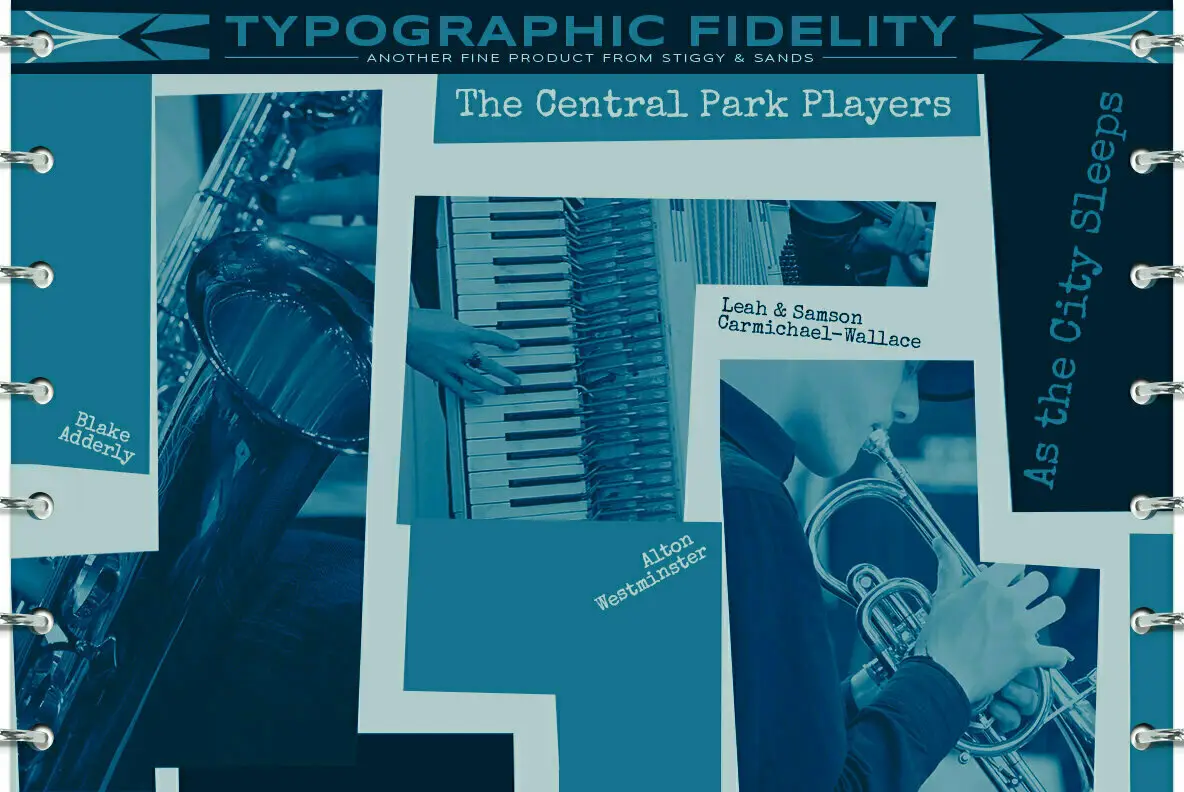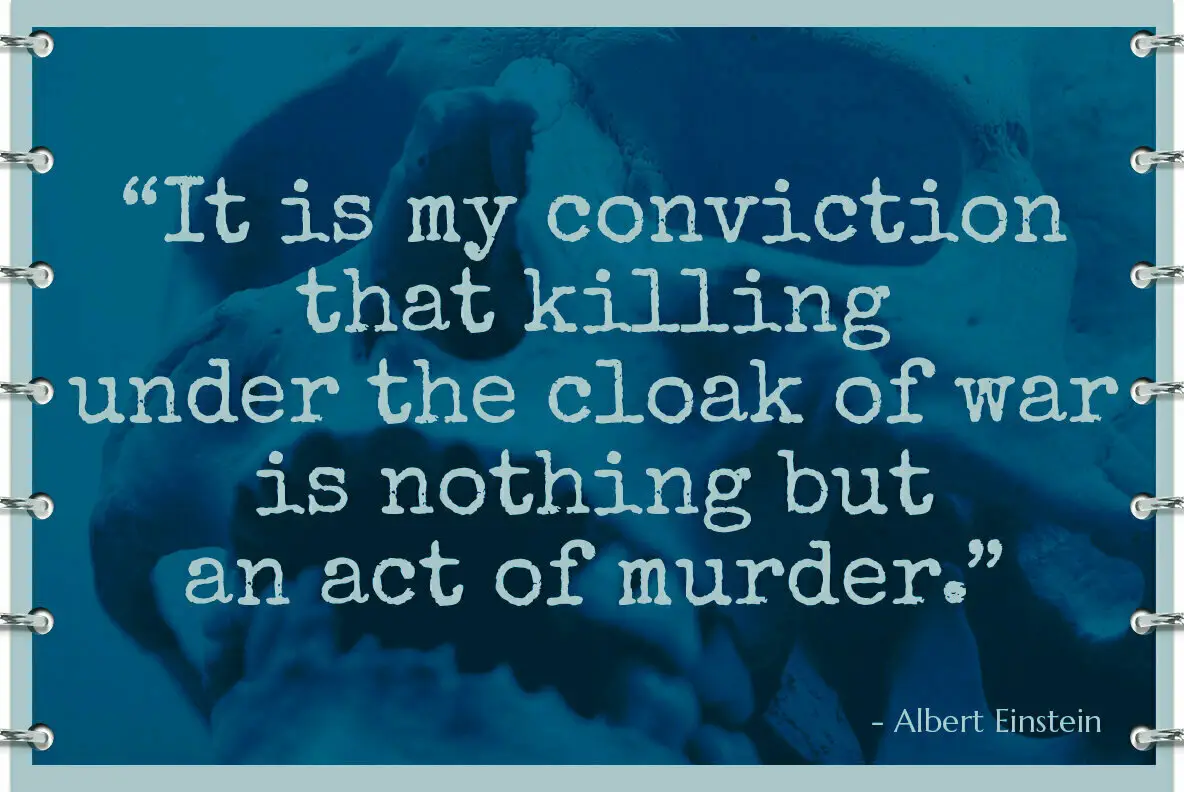
Special Elite Pro Font . A little bit of inked up grunge and a little. Antique typewriters would type with a warmth and appeal to them, primarily because of their unpredictable “grunge” results from force of keystrokes to ribbon and paper. Special elite was created to mimic the smith corona special elite type no nr6 and remington noiseless typewriter models. Special elite pro font brings the unique individuality of the special elite type no. Nr6 vintage typewriter keyset to the digital age. Our special elite pro brings the unique individuality of the special elite type no. Special elite is modeled after the smith corona special elite type number nr6 and remington noiseless typewriters. Download and install the special elite free. Our special elite pro brings the unique individuality of the special elite type no. Special elite mimics the smith corona special elite type number nr6 and remington noiseless typewriter models. Our special elite pro brings the unique individuality of the special elite type no. Nr6 vintage typewriter keyset to the digital age. The smallcaps and extensive figure sets. Nr6 vintage typewriter keyset to the digital age. Nr6 vintage typewriter keyset to the digital.
Nr6 vintage typewriter keyset to the digital age. Special elite pro font brings the unique individuality of the special elite type no. Our special elite pro brings the unique individuality of the special elite type no. Antique typewriters would type with a warmth and appeal to them, primarily because of their unpredictable “grunge” results from force of keystrokes to ribbon and paper. A little bit of inked up grunge and a little. Nr6 vintage typewriter keyset to the digital age. Special elite is modeled after the smith corona special elite type number nr6 and remington noiseless typewriters. Special elite was created to mimic the smith corona special elite type no nr6 and remington noiseless typewriter models. Nr6 vintage typewriter keyset to the digital.
Special Elite Pro Stiggy & Sands
Special Elite Pro Font Special elite pro font brings the unique individuality of the special elite type no. Nr6 vintage typewriter keyset to the digital age. Special elite pro font brings the unique individuality of the special elite type no. Our special elite pro brings the unique individuality of the special elite type no. Nr6 vintage typewriter keyset to the digital. Special elite was created to mimic the smith corona special elite type no nr6 and remington noiseless typewriter models. A little bit of inked up grunge and a little. Special elite mimics the smith corona special elite type number nr6 and remington noiseless typewriter models. Special elite is modeled after the smith corona special elite type number nr6 and remington noiseless typewriters. Download and install the special elite free. Our special elite pro brings the unique individuality of the special elite type no. The smallcaps and extensive figure sets. Antique typewriters would type with a warmth and appeal to them, primarily because of their unpredictable “grunge” results from force of keystrokes to ribbon and paper. Nr6 vintage typewriter keyset to the digital age. Our special elite pro brings the unique individuality of the special elite type no. Nr6 vintage typewriter keyset to the digital age.
Similar Fonts To Special Elite Pro Fontspring Special Elite Pro Font Nr6 vintage typewriter keyset to the digital age. Antique typewriters would type with a warmth and appeal to them, primarily because of their unpredictable “grunge” results from force of keystrokes to ribbon and paper. Special elite is modeled after the smith corona special elite type number nr6 and remington noiseless typewriters. Nr6 vintage typewriter keyset to the digital. Our special. Special Elite Pro Font.
Special Elite free font Special Elite Pro Font Special elite is modeled after the smith corona special elite type number nr6 and remington noiseless typewriters. Our special elite pro brings the unique individuality of the special elite type no. Nr6 vintage typewriter keyset to the digital age. The smallcaps and extensive figure sets. Special elite pro font brings the unique individuality of the special elite type no. Our. Special Elite Pro Font.
Special Elite Pro Font Fontspring Special Elite Pro Font A little bit of inked up grunge and a little. Special elite was created to mimic the smith corona special elite type no nr6 and remington noiseless typewriter models. Special elite mimics the smith corona special elite type number nr6 and remington noiseless typewriter models. Special elite pro font brings the unique individuality of the special elite type no. The. Special Elite Pro Font.
Special Elite Font Free Download Special Elite Pro Font Nr6 vintage typewriter keyset to the digital. Download and install the special elite free. A little bit of inked up grunge and a little. Special elite mimics the smith corona special elite type number nr6 and remington noiseless typewriter models. Nr6 vintage typewriter keyset to the digital age. The smallcaps and extensive. Special Elite Pro Font.
Special Elite Font GraphicUX Typography fonts, Unique fonts, Free Special Elite Pro Font Our special elite pro brings the unique individuality of the special elite type no. Nr6 vintage typewriter keyset to the digital age. Download and install the special elite free. Special elite pro font brings the unique individuality of the special elite type no. Antique typewriters would type with a warmth and appeal to them, primarily because of their unpredictable “grunge”. Special Elite Pro Font.
Special Elite Pro Font by Stiggy & Sands Font Bros Special Elite Pro Font Special elite was created to mimic the smith corona special elite type no nr6 and remington noiseless typewriter models. A little bit of inked up grunge and a little. The smallcaps and extensive figure sets. Our special elite pro brings the unique individuality of the special elite type no. Special elite is modeled after the smith corona special elite type. Special Elite Pro Font.
Special Elite Pro Stiggy & Sands Special Elite Pro Font Nr6 vintage typewriter keyset to the digital age. Nr6 vintage typewriter keyset to the digital. Our special elite pro brings the unique individuality of the special elite type no. Our special elite pro brings the unique individuality of the special elite type no. Antique typewriters would type with a warmth and appeal to them, primarily because of their unpredictable “grunge”. Special Elite Pro Font.
Special Elite Font Download Special Elite Pro Font Special elite pro font brings the unique individuality of the special elite type no. Our special elite pro brings the unique individuality of the special elite type no. Nr6 vintage typewriter keyset to the digital age. Download and install the special elite free. Nr6 vintage typewriter keyset to the digital age. A little bit of inked up grunge and a. Special Elite Pro Font.
Special Elite Font Free Download Special Elite Pro Font Download and install the special elite free. Nr6 vintage typewriter keyset to the digital age. Special elite pro font brings the unique individuality of the special elite type no. Nr6 vintage typewriter keyset to the digital age. A little bit of inked up grunge and a little. Nr6 vintage typewriter keyset to the digital age. Antique typewriters would type with. Special Elite Pro Font.